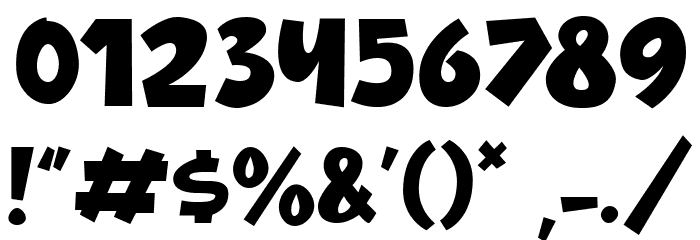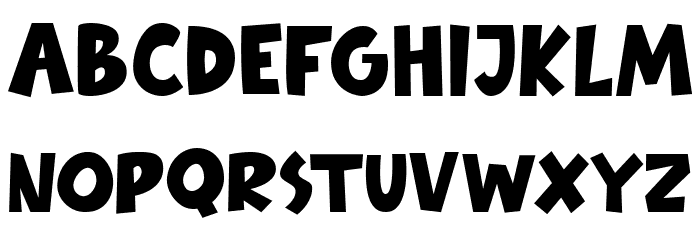
Babydoo Font
Babydoo Description
This playful and bold font features a whimsical style with exaggerated curves and angles, giving it a lively and energetic appearance. The characters are slightly irregular, adding a hand-drawn feel that enhances its charm. The uppercase and lowercase letters maintain a consistent weight, providing a cohesive look across the alphabet. Numbers and special characters are designed with the same playful aesthetic, making them stand out in any design. The font's thick strokes and rounded edges contribute to its friendly and approachable vibe, making it ideal for projects that require a fun and informal touch.
A playful, bold font with a whimsical, hand-drawn style from Cartoon fonts.
- Proposed Projects: Ideal for children's books, playful branding, party invitations, and creative posters.
- Overall Style: Playful, Whimsical